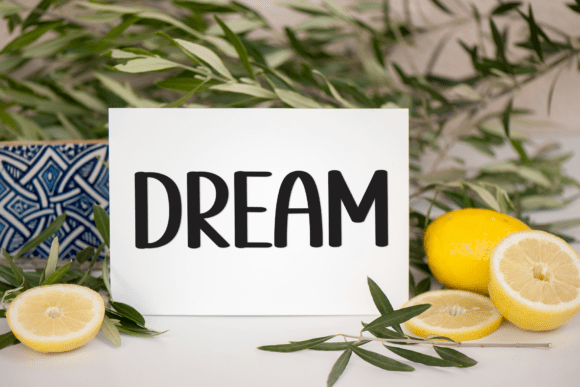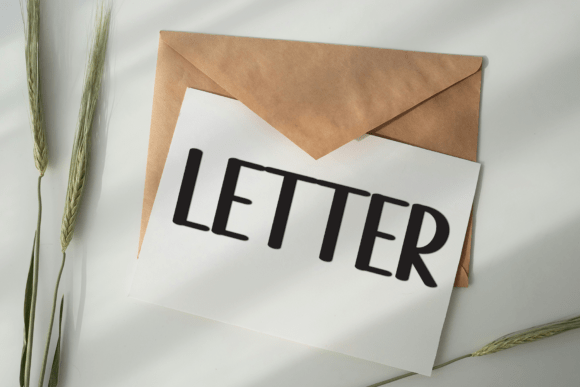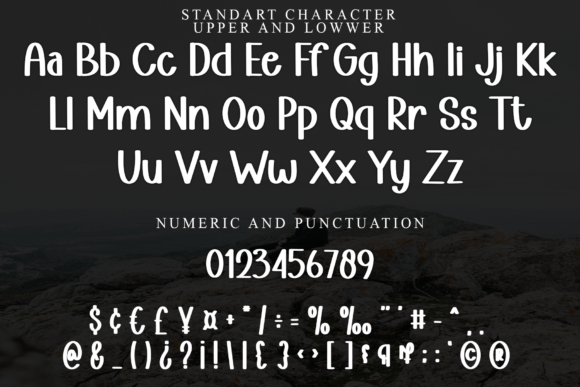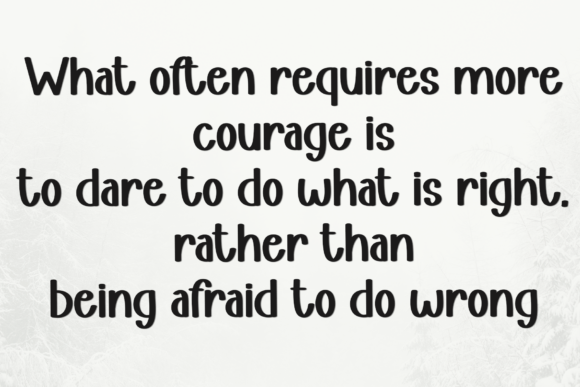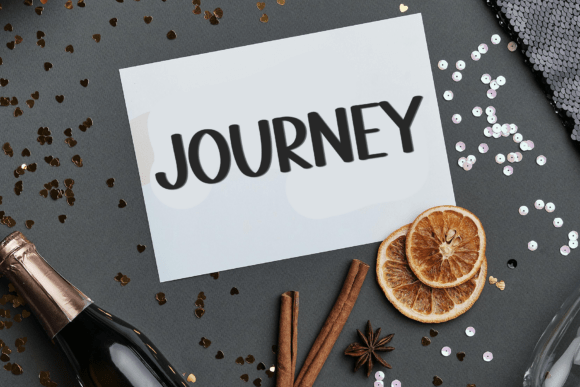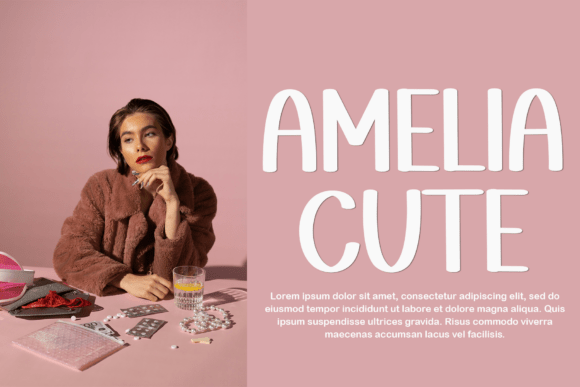
Introducing Bookmark Planner Font: Elevate Your Designs with a Unique Touch
In the world of design, a font can make all the difference in creating a lasting impression. For crafters, designers, and creative enthusiasts, finding the perfect font that combines aesthetics and versatility is a treasure. This is where the Bookmark Planner Font comes into play, a beautifully crafted typeface that is about to revolutionize your design projects. With its soft, unique touch and distinctive strokes, this font is not just a style, but a statement.
The Distinctive Charm of Bookmark Planner Font
The Bookmark Planner Font stands out with its eye-catching design and soft texture, offering a fresh perspective to your creative works. Its unique strokes provide a special character that makes it more than just a font – it’s an element of design that can elevate your projects. Whether you’re working on crafts, digital art, or any design project, this font brings a meaningful and versatile approach that adapts to your creative needs.
One of the key features of the Bookmark Planner Font is its incredible versatility. With a range of characters, this font is perfect for a multitude of design projects. From planners and journals to digital art and marketing materials, its application is limitless. The natural font style resonates with various artistic and creative fields, making it a go-to choice for designers looking to add a personal touch to their work.
Ideal for a Wide Range of Products
The beauty of the Bookmark Planner Font lies in its adaptability to different products and mediums. It’s perfect for:
- Digital designs, such as website graphics and social media posts
- Print materials, including brochures, posters, and business cards
- Crafts, like handmade cards and DIY projects
- Artistic works, including illustrations and paintings
Its natural and appealing style ensures that your designs capture the attention of a wide audience, making it an excellent choice for projects aimed at diverse demographics.
Enhance Your Designs
The ultimate goal of any design project is to leave a lasting impression. With the Bookmark Planner Font, you’re equipped with a tool that can significantly enhance your designs. Its appealing style and unique touch make your work stand out, engaging viewers and drawing them in. Whether you’re a professional designer or a crafting enthusiast, this font can elevate your projects, making them more captivating and memorable.
The Bookmark Planner Font is more than just a typeface; it’s a creative companion that can transform your design projects. With its unique design, versatility, and compatibility across various platforms, it’s an invaluable resource for designers and crafters alike. Whether you’re looking to add a personal touch to your crafts or seeking a distinctive style for your digital art, the Bookmark Planner Font is your gateway to creating visually appealing and impactful designs. Embrace the beauty and functionality of this font, and watch your creative works come to life in a new and exciting way.